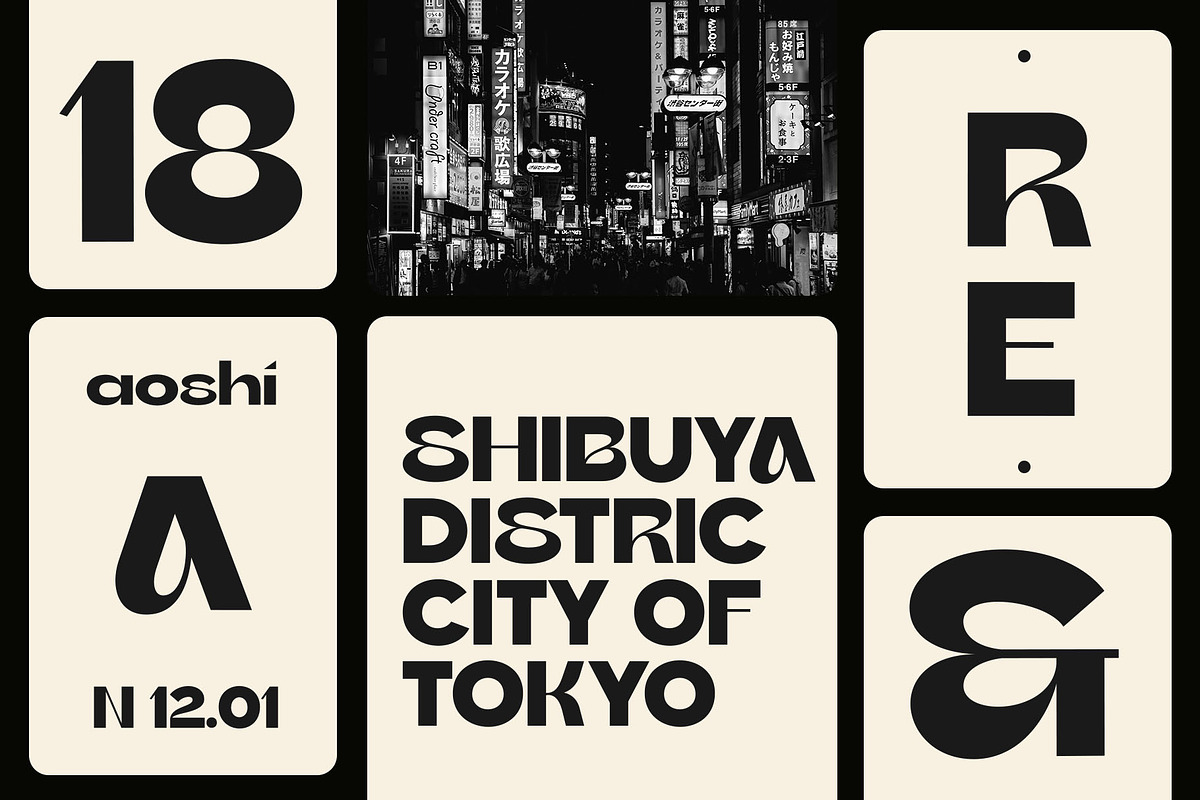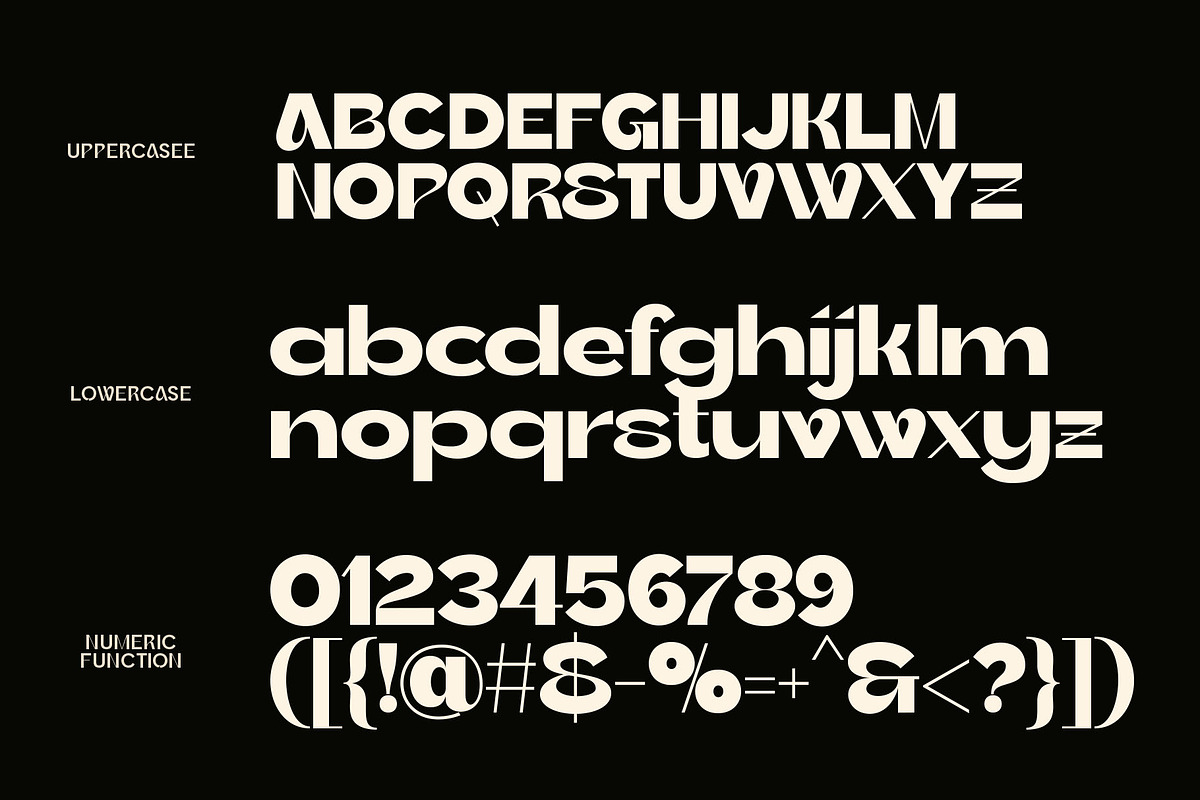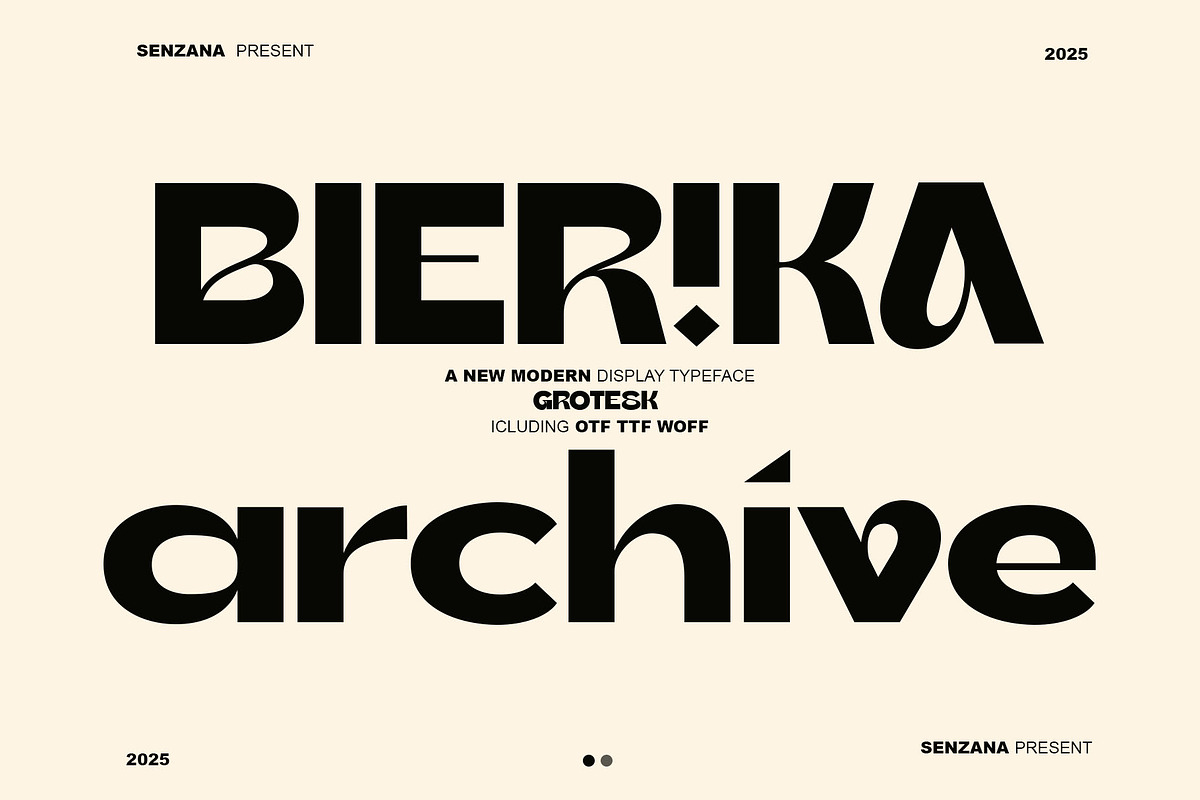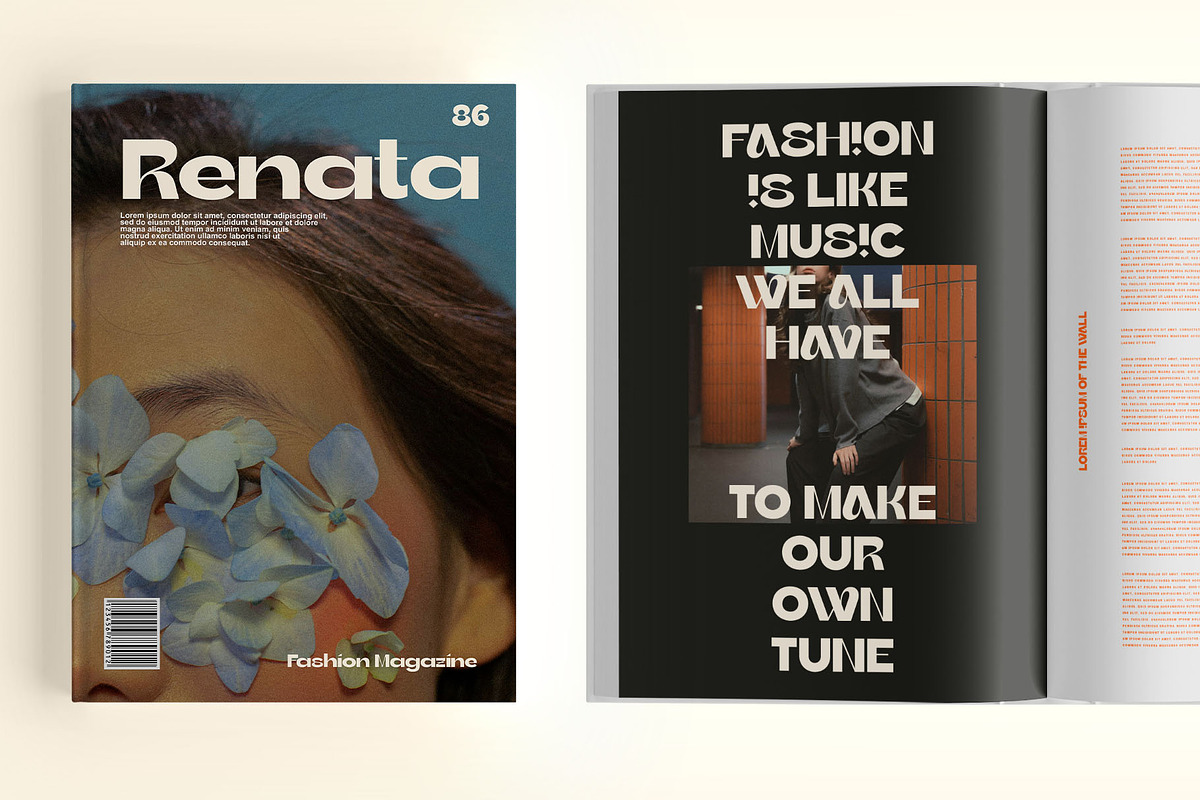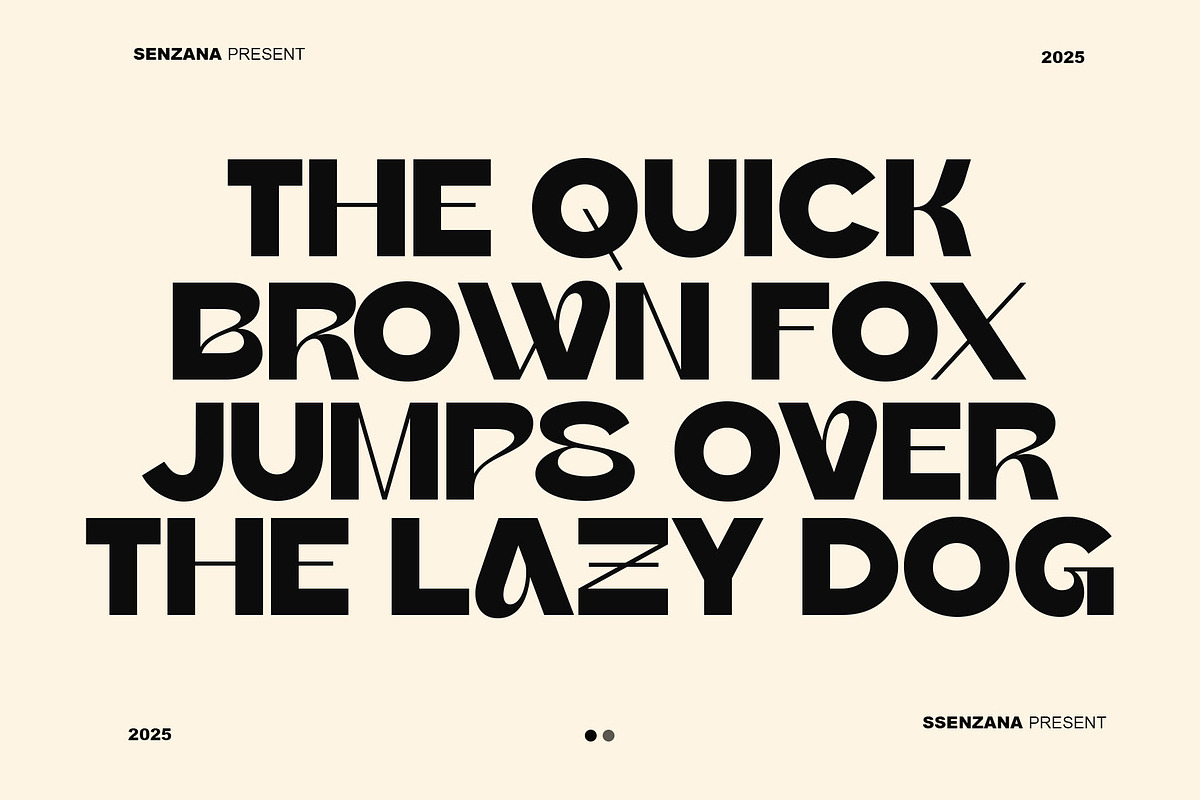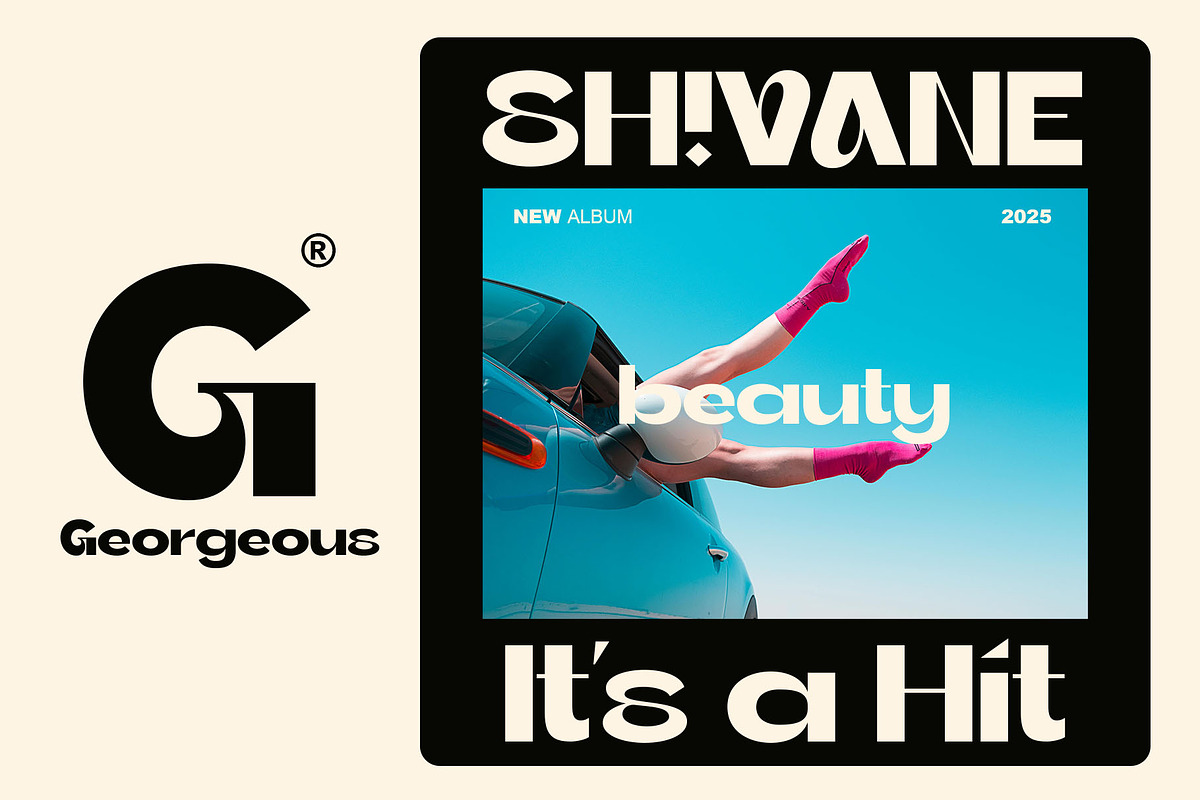
Bierika
Bierika is a display font that delivers a strong, modern, and characterful look. With its unique and bold letterforms, this font is designed to grab attention and create a daring yet dynamic impression. Perfect for headlines, posters, logos, product packaging, and various creative designs that need a distinctive and standout touch.
Key Features: ✔ Bold and strong character design ✔ Unique and modern style ✔ Supports multiple languages ✔ Ideal for branding, editorials, merchandise, and social media